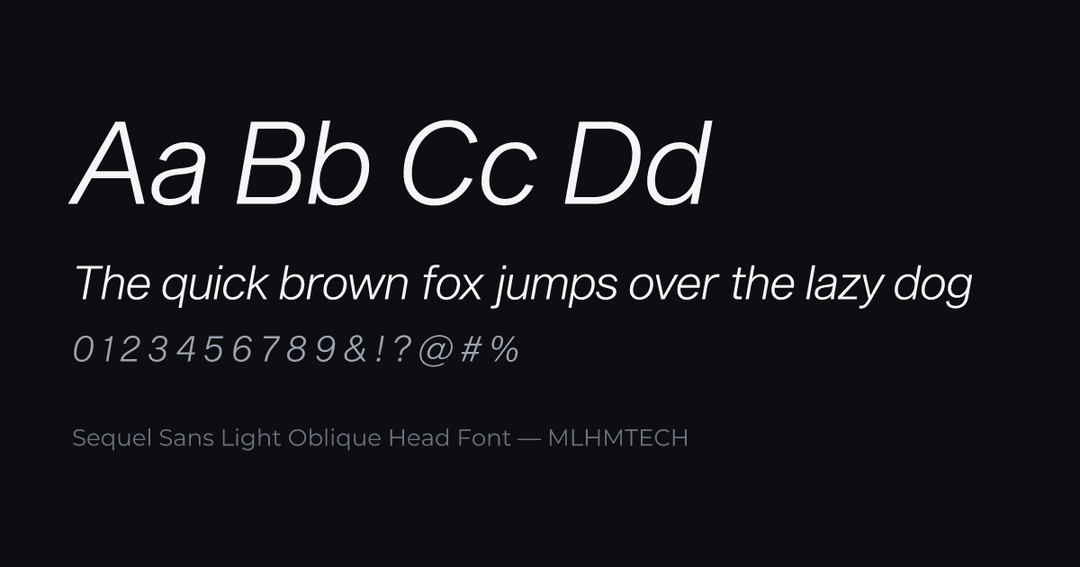
Sequel Sans Light Oblique Head Font
Sequel Sans Light Oblique Head is a refined sans-serif font with a subtle slant, ideal for modern headlines and elegant branding.
Sequel Sans Light Oblique Head is a high-quality sans-serif typeface with a light weight and an oblique (slanted) style. Its clean lines and subtle inclination give it a contemporary, dynamic feel, making it perfect for headlines, logos, and display purposes.
This font is part of the Sequel Sans family, known for its geometric proportions and versatility. The light oblique variant adds a touch of sophistication and movement to any design, whether used in print or digital media.